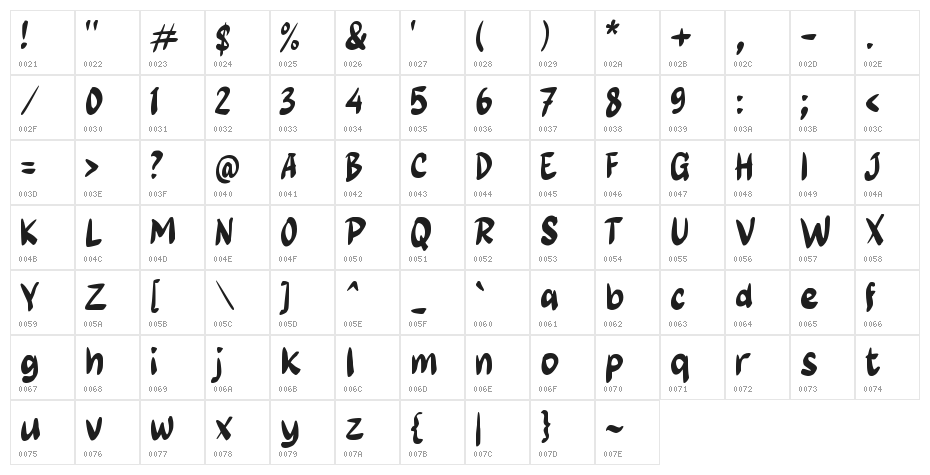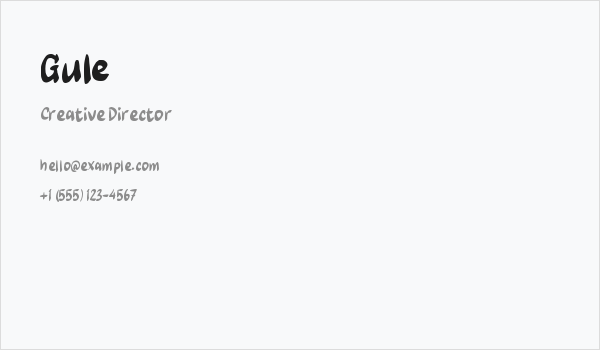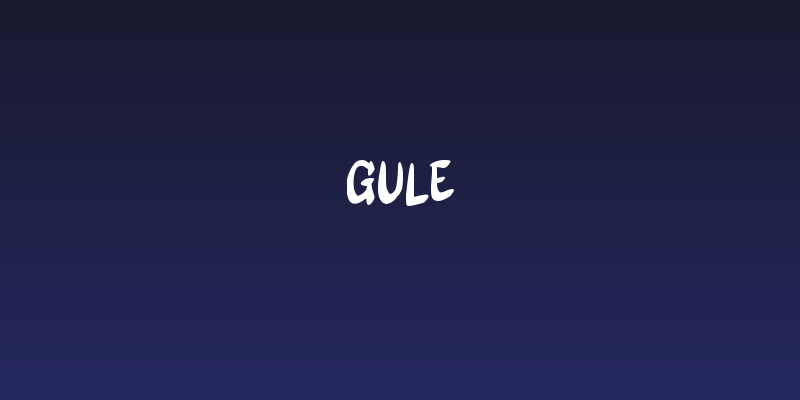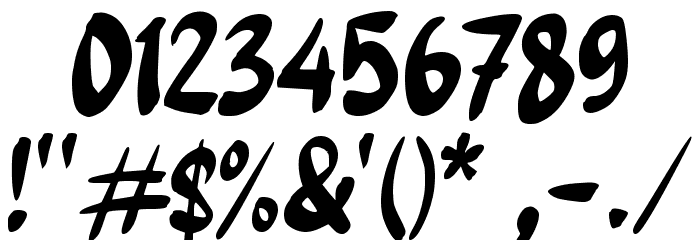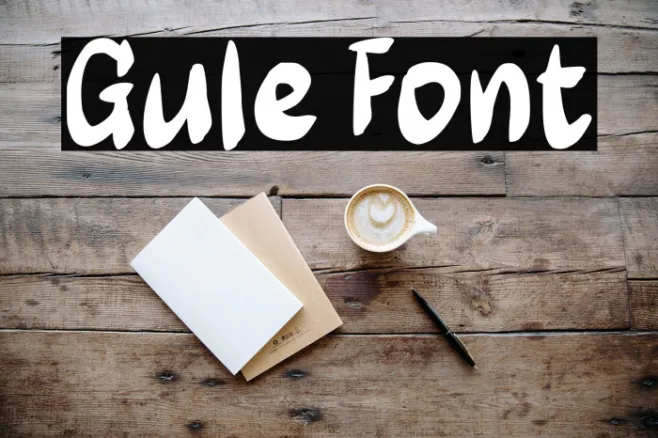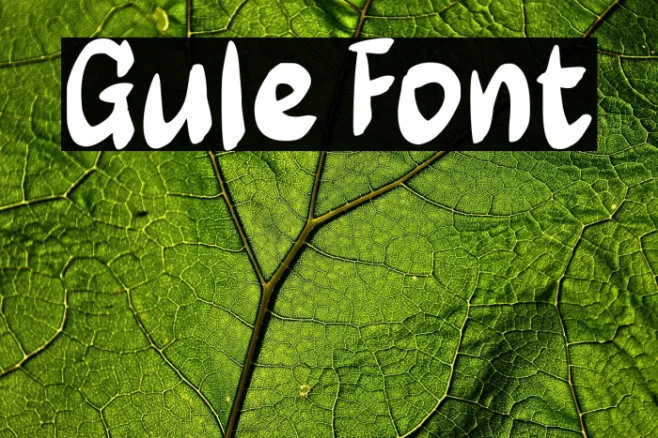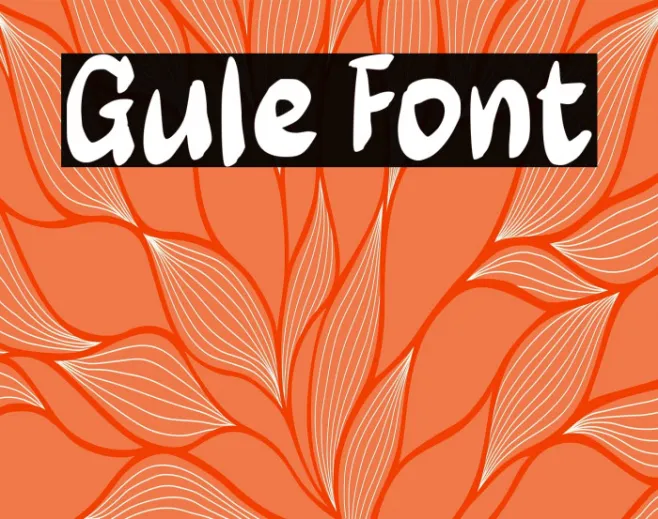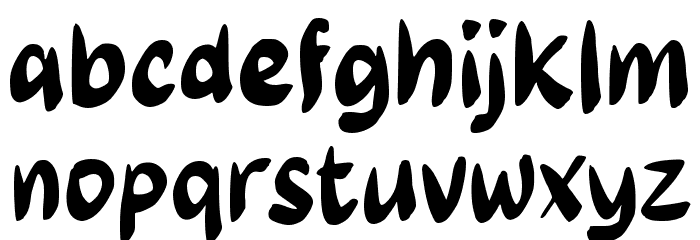
Gule Font
Gule Description
This font features a bold and playful handwritten style, characterized by its thick strokes and slightly irregular shapes. The letters have a casual and friendly appearance, with a dynamic flow that suggests movement and energy. The uppercase and lowercase letters maintain a consistent style, with rounded edges and a slightly slanted orientation. Numbers and special characters are designed to match the playful aesthetic, making them suitable for informal and creative applications. The overall look is both approachable and expressive, ideal for projects that require a personal touch.
| Overall Style | Playful, Casual |
| Proposed Projects | Ideal for greeting cards, children's books, playful branding, and social media graphics. |